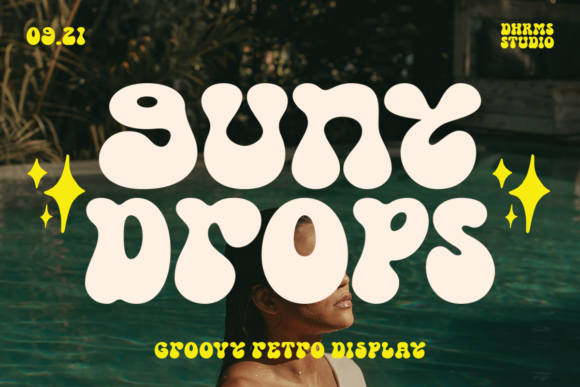
Introducing Gunydrops Font: The Ultimate Display Font for Playful and Creative Projects
Are you looking for a font that embodies playfulness and authenticity? Look no further than Gunydrops Font! This cool, wavy, and bubbly display font is perfect for any children’s activity or school project that requires a fun and creative touch. In this article, we’ll dive into the features and benefits of Gunydrops Font, and explore how it can elevate your design projects to the next level.
What is Gunydrops Font?
Gunydrops Font is a unique and eye-catching display font that is designed to add a playful and whimsical touch to your designs. Its wavy and bubbly texture gives it a distinctive look that is sure to grab attention. The font is perfect for use in children’s books, school projects, posters, and any other design project that requires a fun and youthful vibe.
Key Features of Gunydrops Font
- Playful and Whimsical Design: Gunydrops Font features a unique and playful design that is sure to add a touch of fun to your designs.
- Wavy and Bubbly Texture: The font’s wavy and bubbly texture gives it a distinctive look that is sure to grab attention.
- Perfect for Children’s Projects: Gunydrops Font is specifically designed for use in children’s projects, making it the perfect choice for school projects, children’s books, and more.
- Easy to Read: Despite its playful design, Gunydrops Font is easy to read, making it perfect for use in titles, headings, and other display text.
Benefits of Using Gunydrops Font
There are many benefits to using Gunydrops Font in your design projects. Here are just a few:
- Adds a Touch of Fun and Whimsy: Gunydrops Font adds a touch of fun and whimsy to your designs, making them more engaging and attention-grabbing.
- Perfect for Children’s Projects: Gunydrops Font is specifically designed for use in children’s projects, making it the perfect choice for school projects, children’s books, and more.
- Versatile: Gunydrops Font can be used in a variety of design projects, from posters and flyers to children’s books and school projects.
Tips for Using Gunydrops Font
Here are a few tips for using Gunydrops Font:
- Use it for Headings and Titles: Gunydrops Font is perfect for use in headings and titles, where its playful design can really shine.
- Experiment with Different Colors: Gunydrops Font looks great in a variety of colors, so don’t be afraid to experiment and find the perfect color for your design.
- Pair it with Other Fonts: Gunydrops Font can be paired with other fonts to create a unique and eye-catching design.
In conclusion, Gunydrops Font is a cool, wavy, and bubbly display font that is perfect for any children’s activity or school project. Its playful and whimsical design makes it a great choice for adding a touch of fun to your designs. With its ease of use, versatility, and range of benefits, Gunydrops Font is a great addition to any designer’s toolkit.
- What is Gunydrops Font?
- Gunydrops Font is a cool, wavy, and bubbly display font that is perfect for any children’s activity or school project.
- Is Gunydrops Font easy to read?
- Yes, Gunydrops Font is easy to read, making it perfect for use in titles, headings, and other display text.